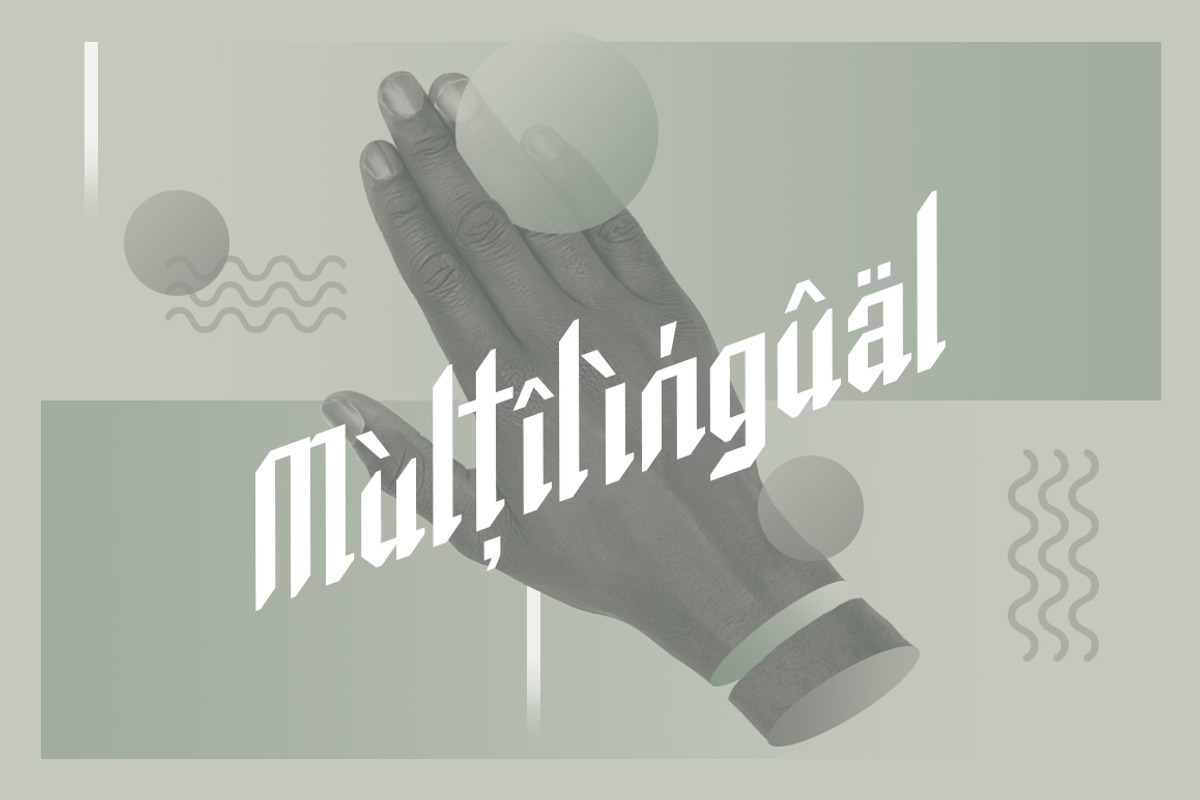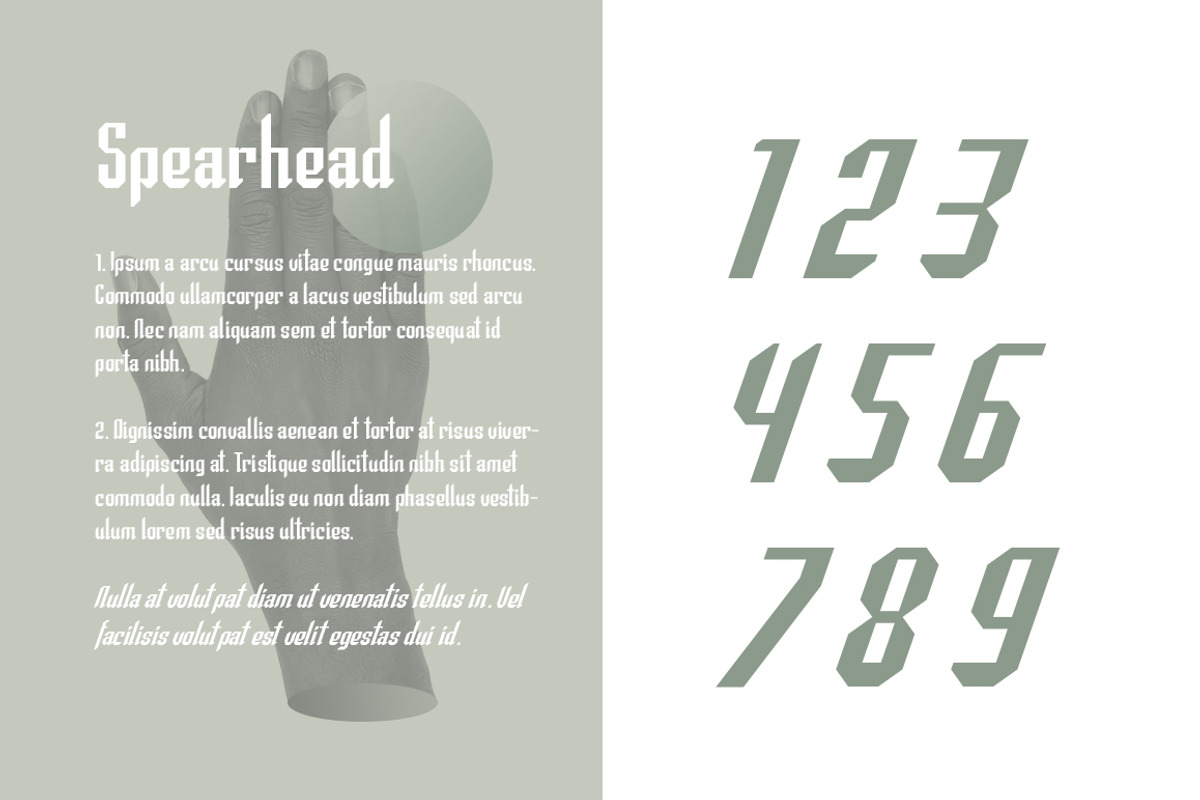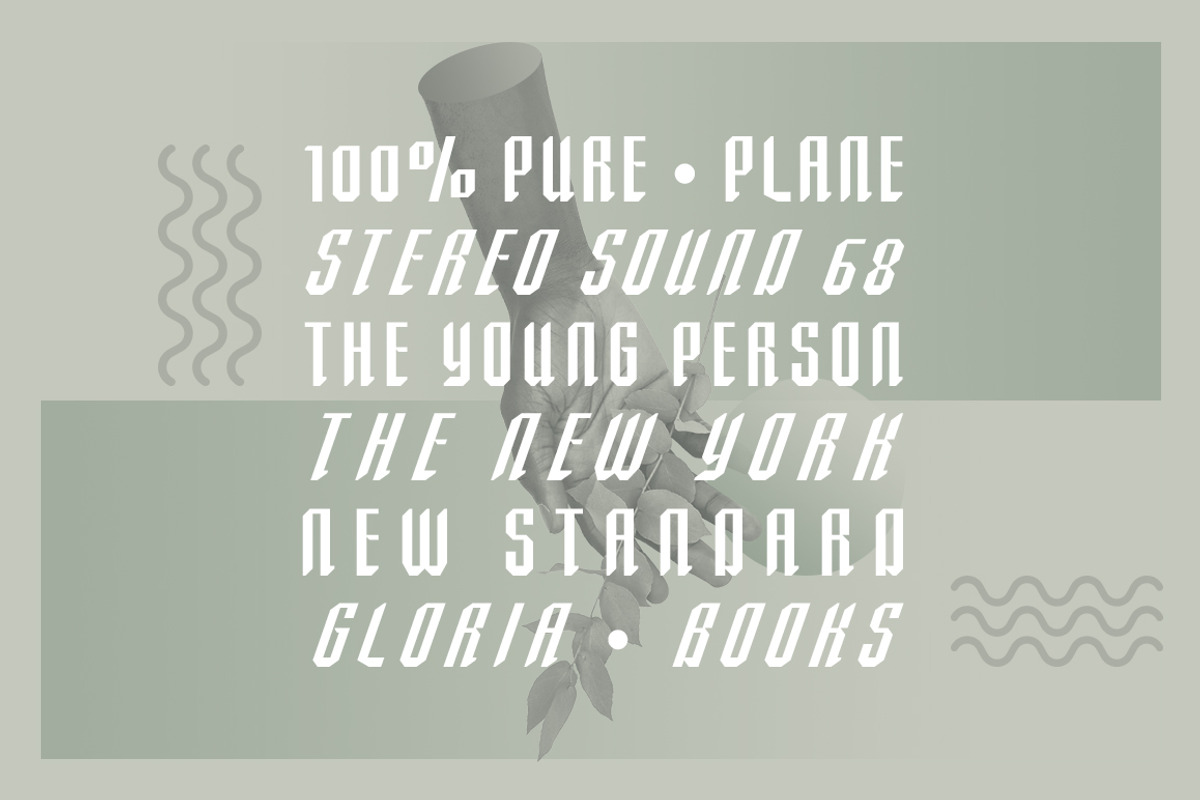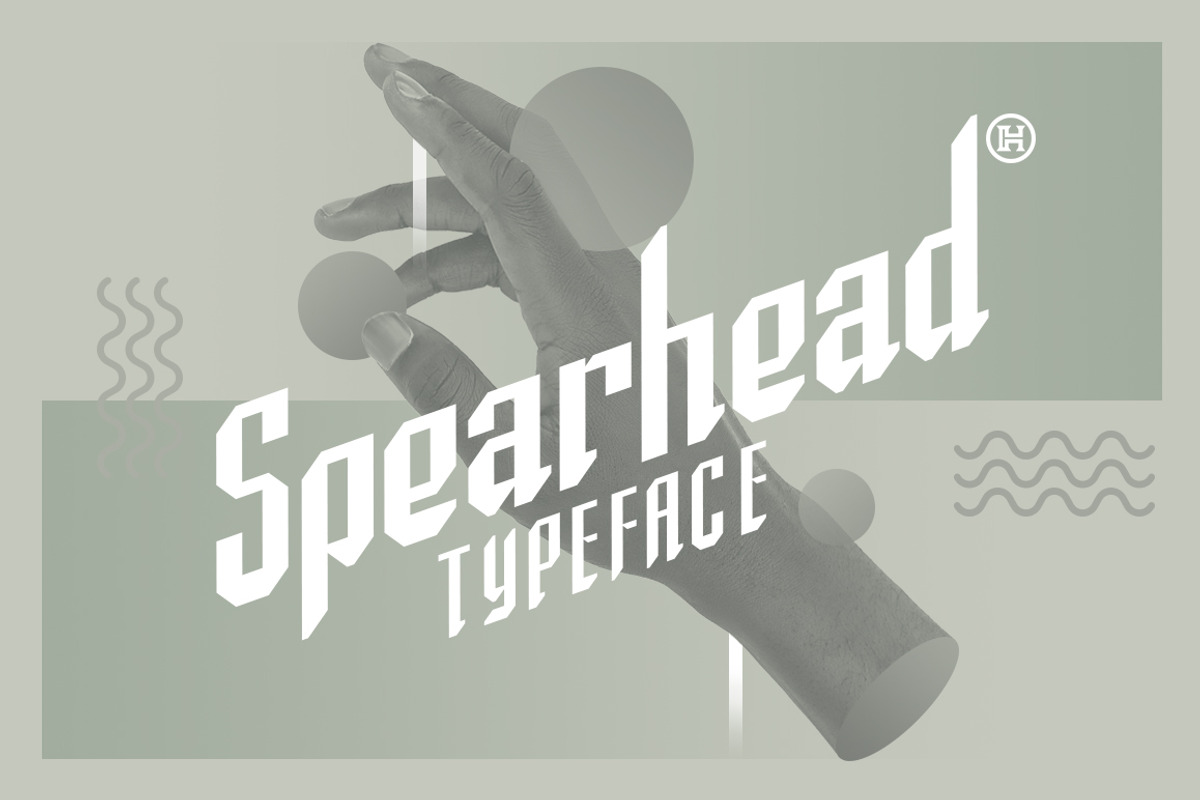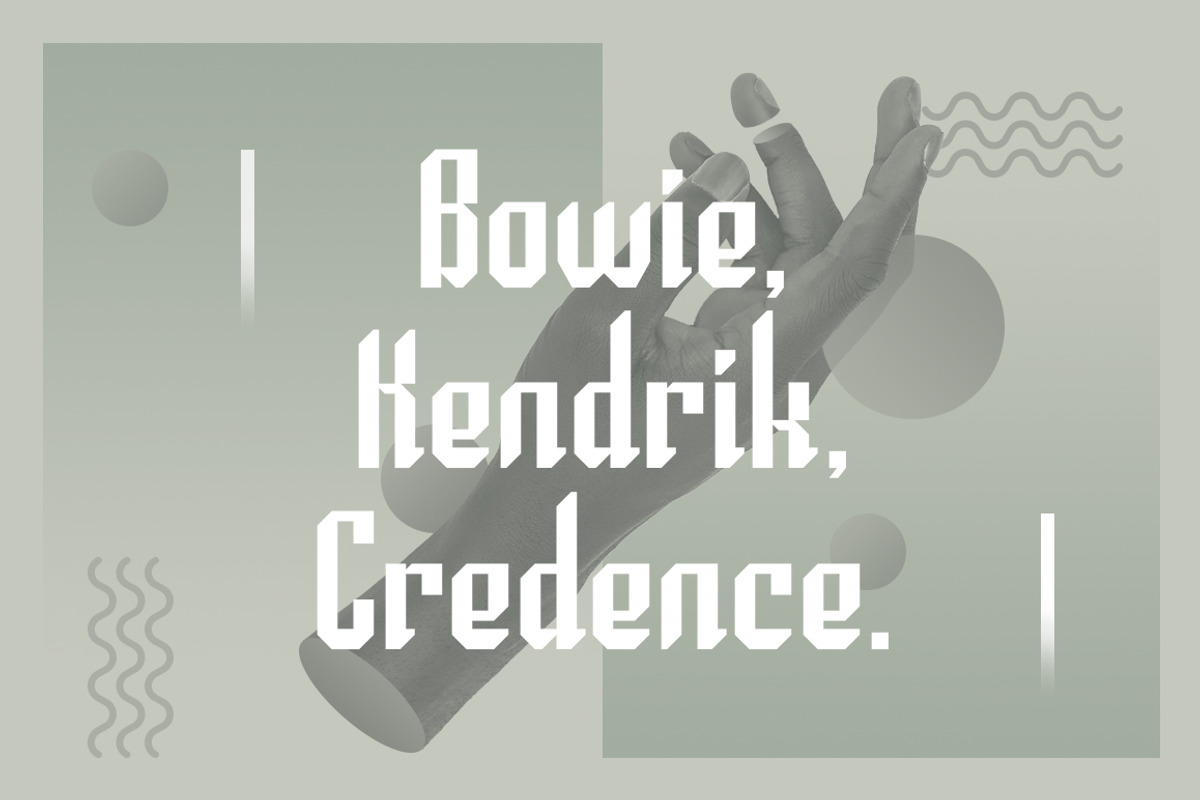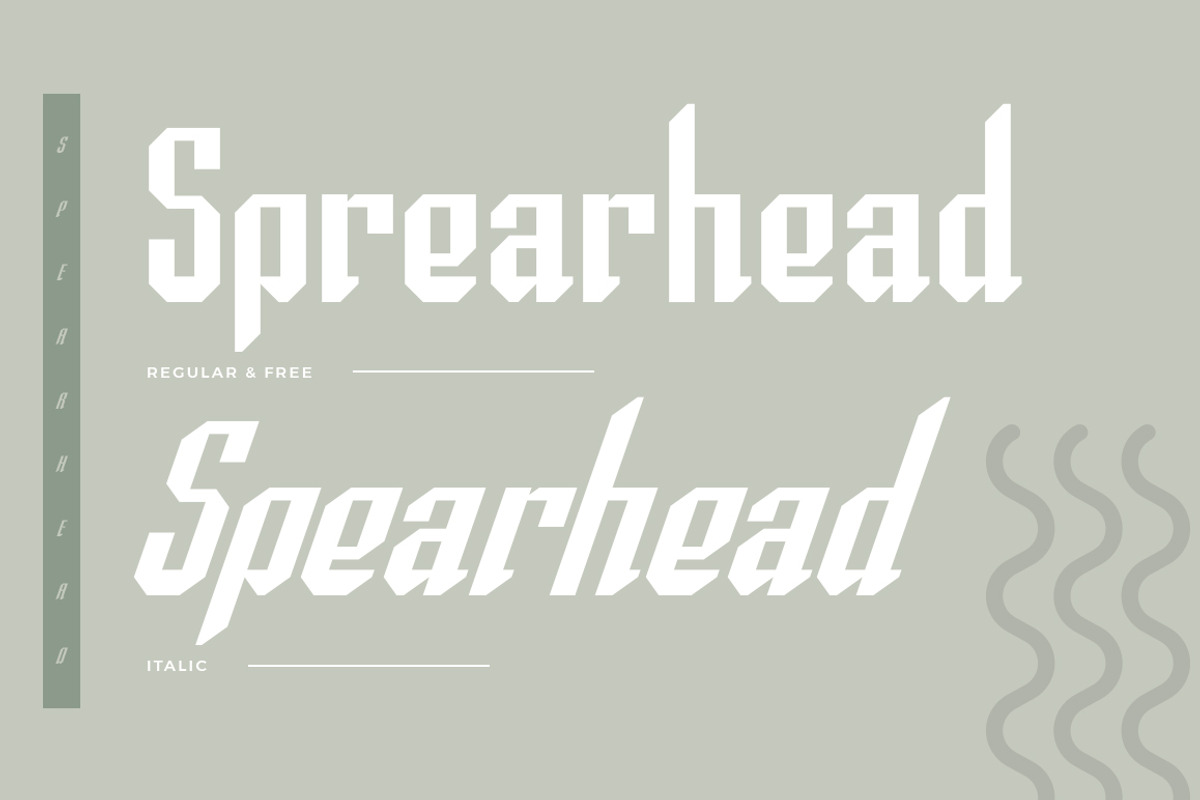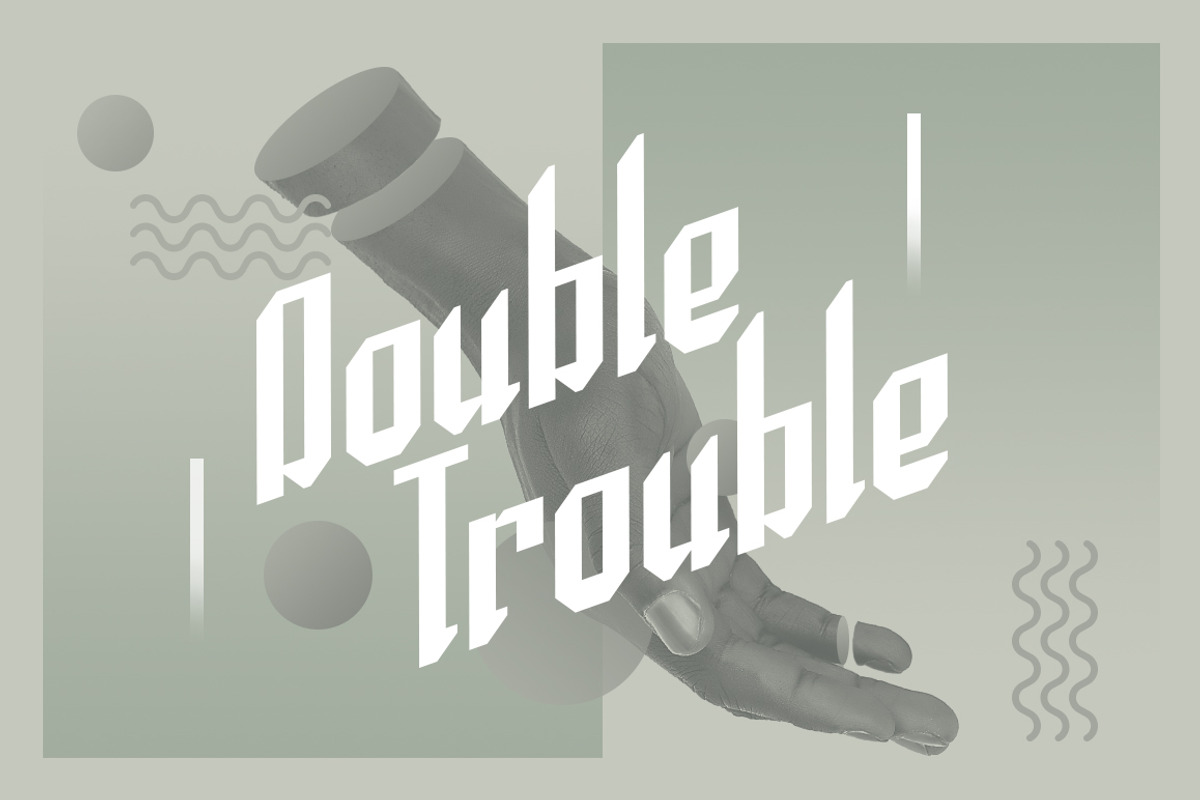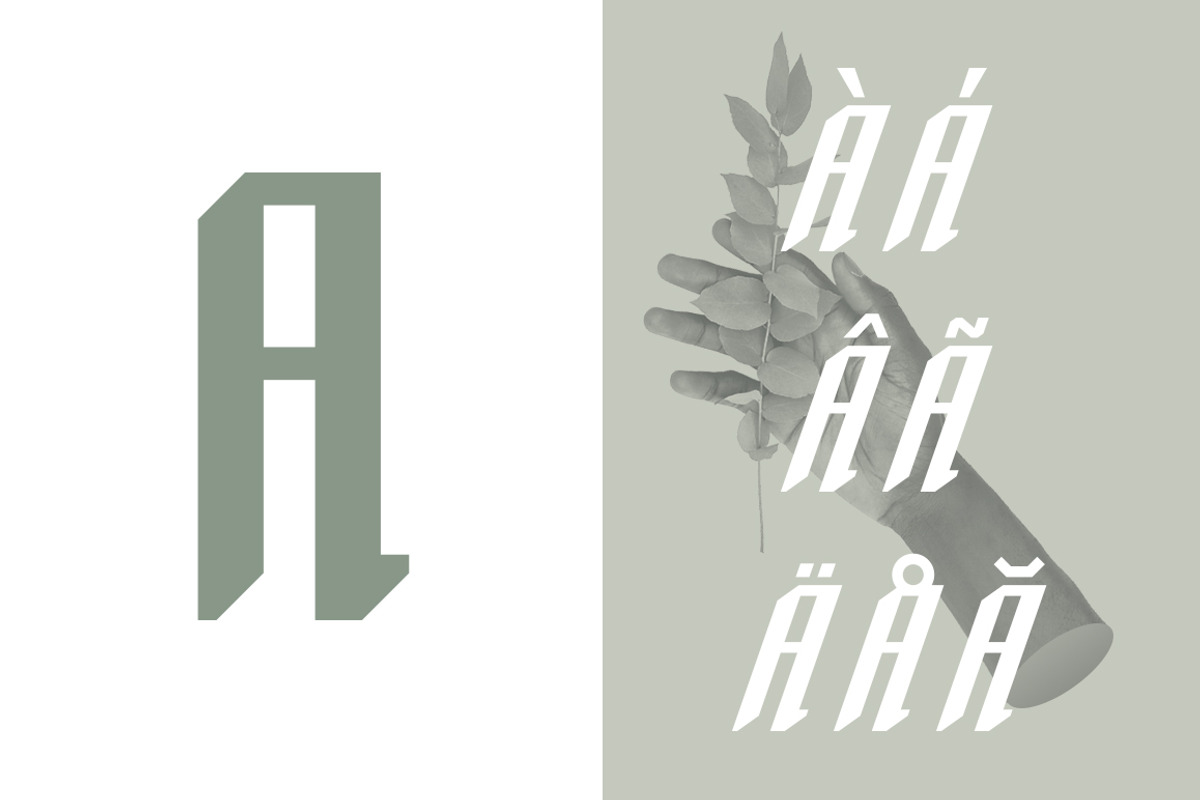
Spearhead Typeface | Font
Presenting SPEARHEAD, a sport brand industry inspired font with a dynamic, expressive and competitive face. Spearhead is sporty and modern with block, rigid sans serif letterforms and bold angled terminals. This font is displaying a strong visual appearance through two styles, Spearhead Regular and a matching Italic. Spearhead includes a number of 252 glyphs for each style, an uppercase and lowercase alphabet and extensive Latin script support. You can use Spearhead for any design project that needs an active, strong look such as headers, logos, captions and posters, especially for the sports branding industry and more.
Extensive Latin script language support
Upper and lowercase font